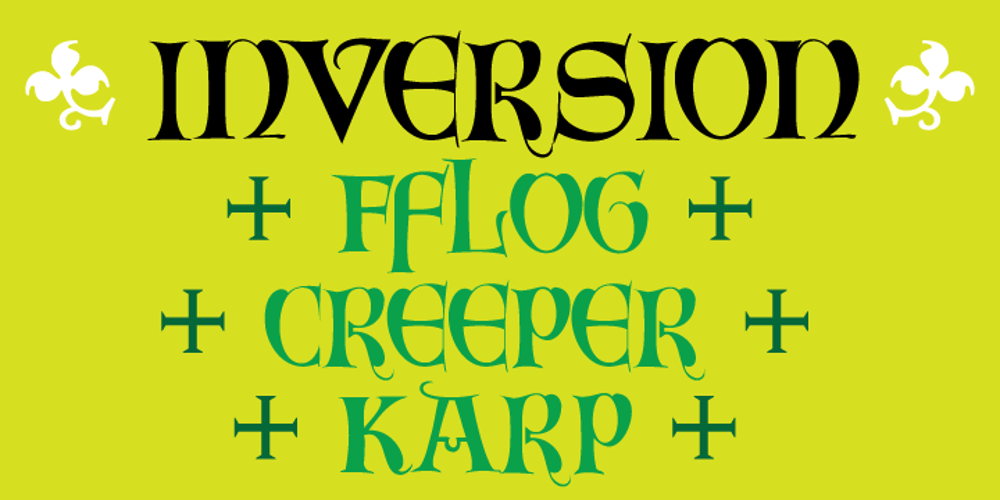
Inversion
Inversion font
Inversion Font Family was designed by Ian Lynam and published by Wordshape. Inversion contains 1 styles and family package options. Inversion is a display typeface that is based on a rare bit of lettering from a 1910 German lettering book. What was the inspiration for designing the font? I found the base lettering years ago in a specimen and scanned it. I’ve used it perennially for assorted metal bands’ logos, and finally decided to digitize it. What are its main characteristics and features? It is a spidery bit of lettering that would work well in Harry Potter movies or on album covers. Usage recommendations: Display type for use in materials that are meant to have a hand-wrought look circa the turn of the century.